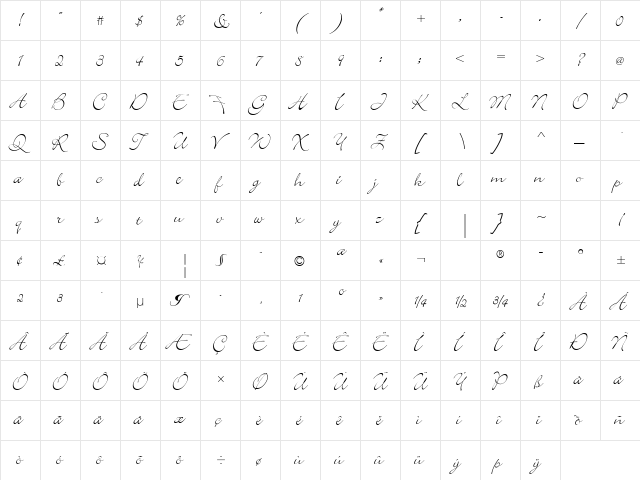
Bickley Script (F backwards) Regular
| Designer | Alan Meeks |
Design Context for Bickley Script (F backwards) Typeface
Bickley Script (F backwards) flows with the natural rhythm of handwritten lettering, making it ideal for designs that call for warmth and personal expression.